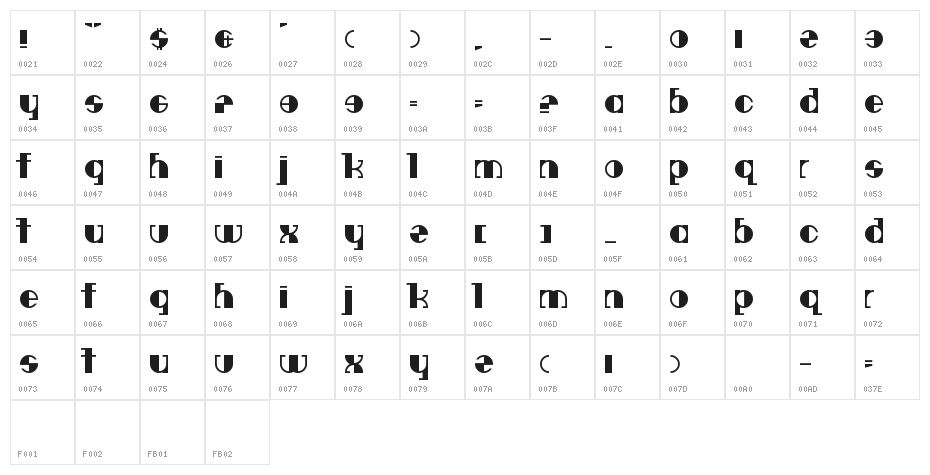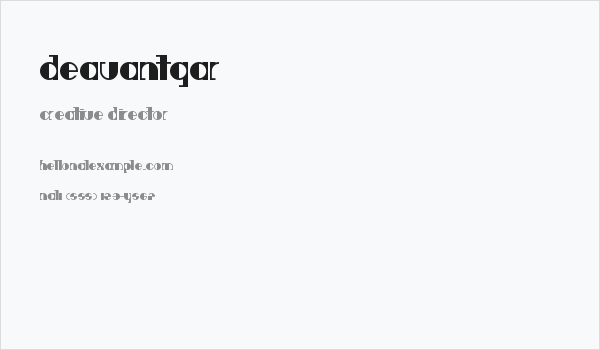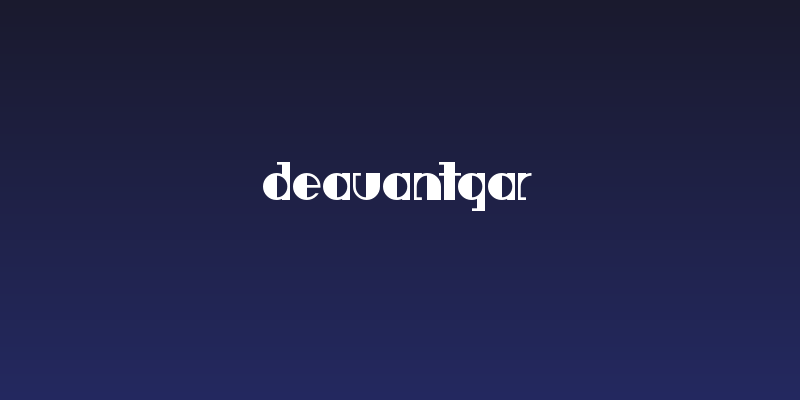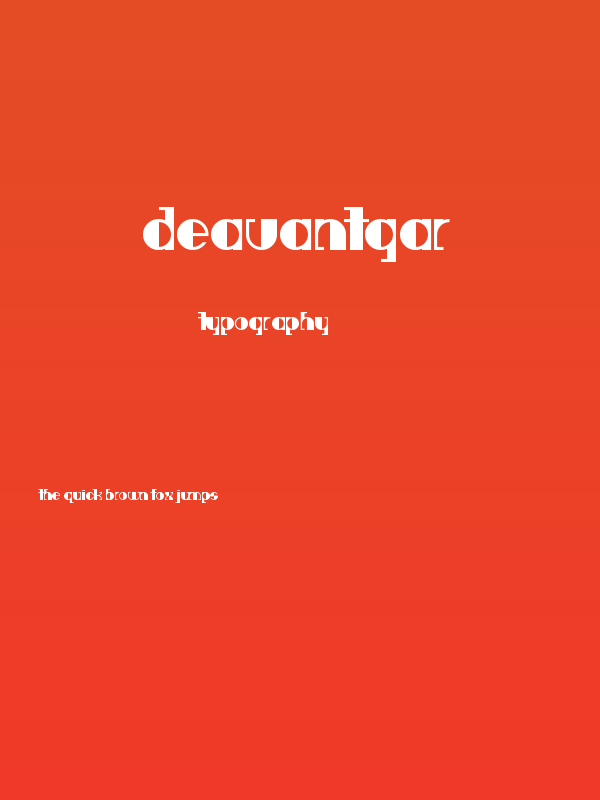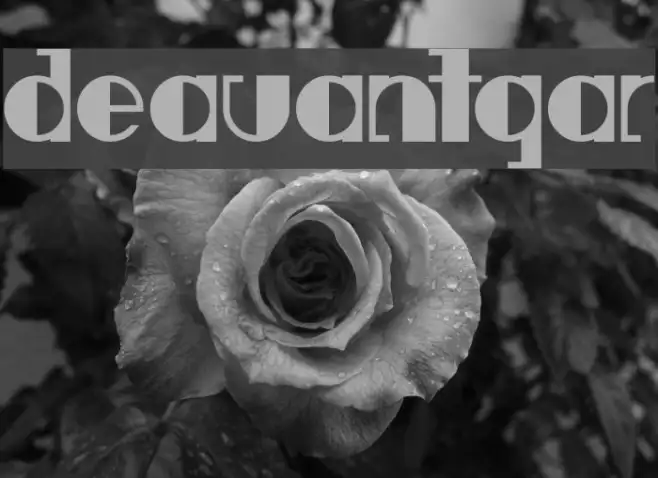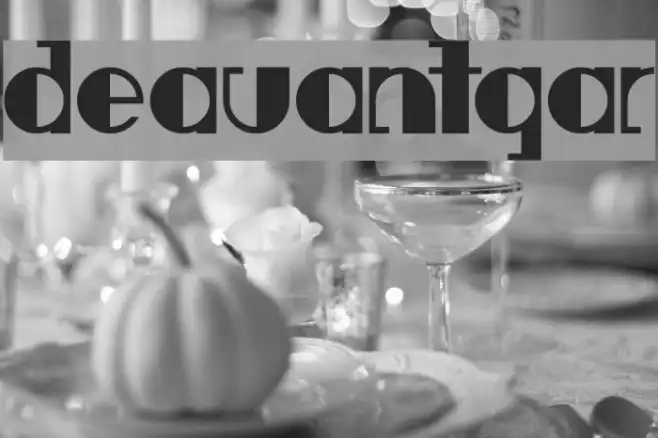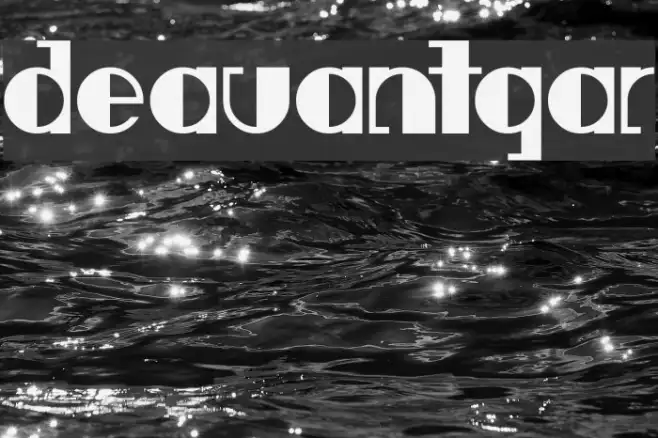
Deavantgar Font
Deavantgar Description
This font features a bold and geometric style with a modern twist. The characters are constructed with a combination of thick and thin strokes, creating a high contrast that draws attention. The design incorporates unique shapes and angles, giving it a futuristic and avant-garde appearance. The uppercase and lowercase letters maintain a consistent style, with rounded edges and sharp terminals that add to its distinctiveness. The numerals and special characters follow the same design principles, ensuring a cohesive look across all elements. This font is ideal for projects that require a striking and contemporary aesthetic.